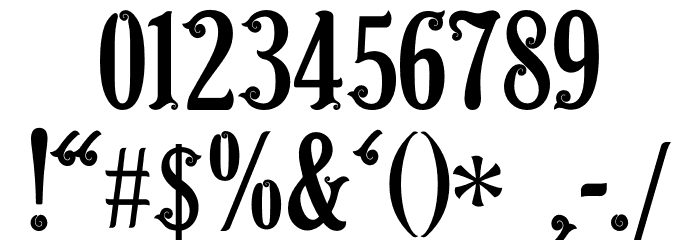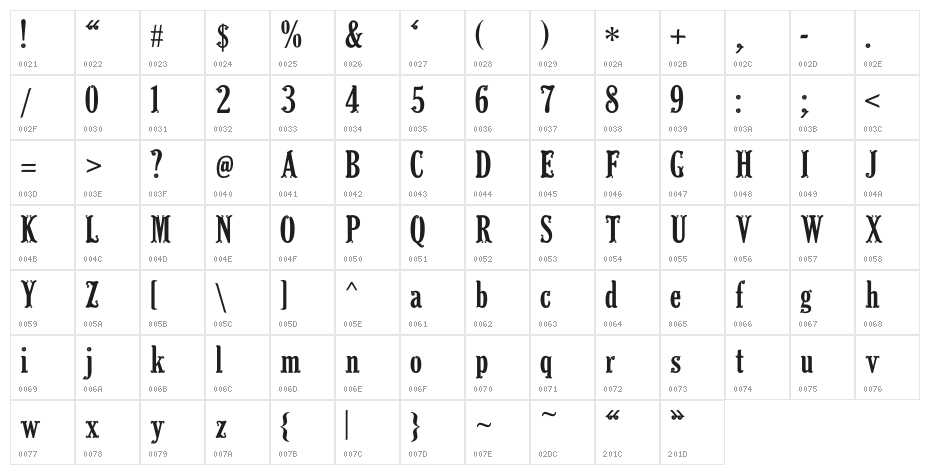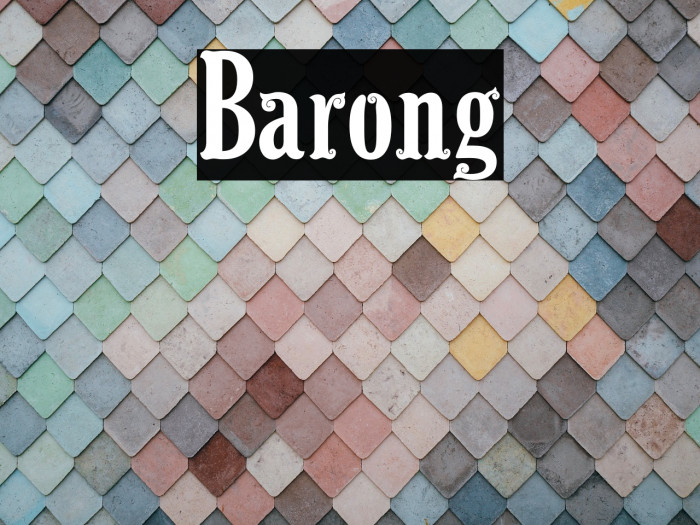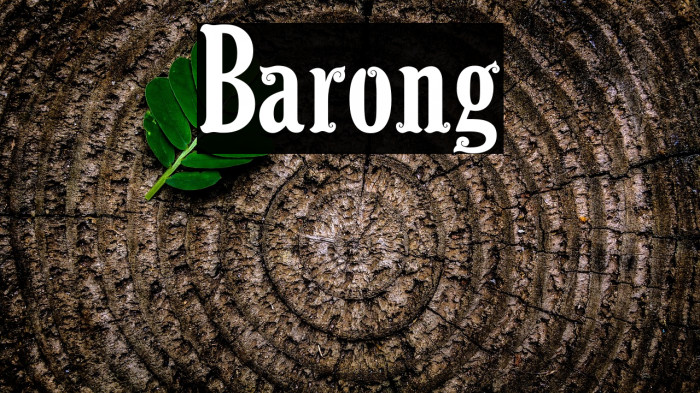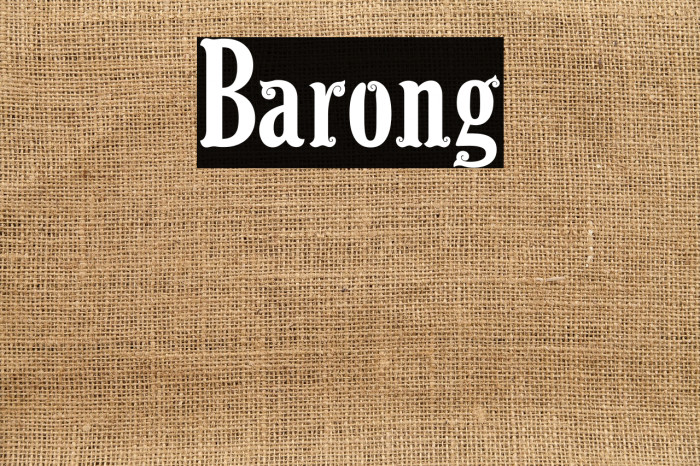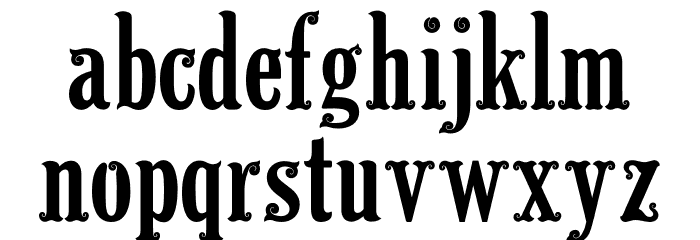
Barong Font
Barong Description
This font features a bold and decorative style with unique, ornate serifs that give it a distinctive appearance. Each character is crafted with intricate details, including curls and flourishes, which add a touch of elegance and sophistication. The uppercase and lowercase letters maintain a consistent design, ensuring readability while still offering a decorative flair. The numbers and special characters follow the same ornate style, making them suitable for creative and artistic projects. The overall look is both vintage and modern, combining classic elements with a contemporary twist.
| Overall Style | Vintage, Decorative |
| Proposed Projects | Ideal for branding, posters, invitations, and any project requiring a touch of elegance and creativity. |